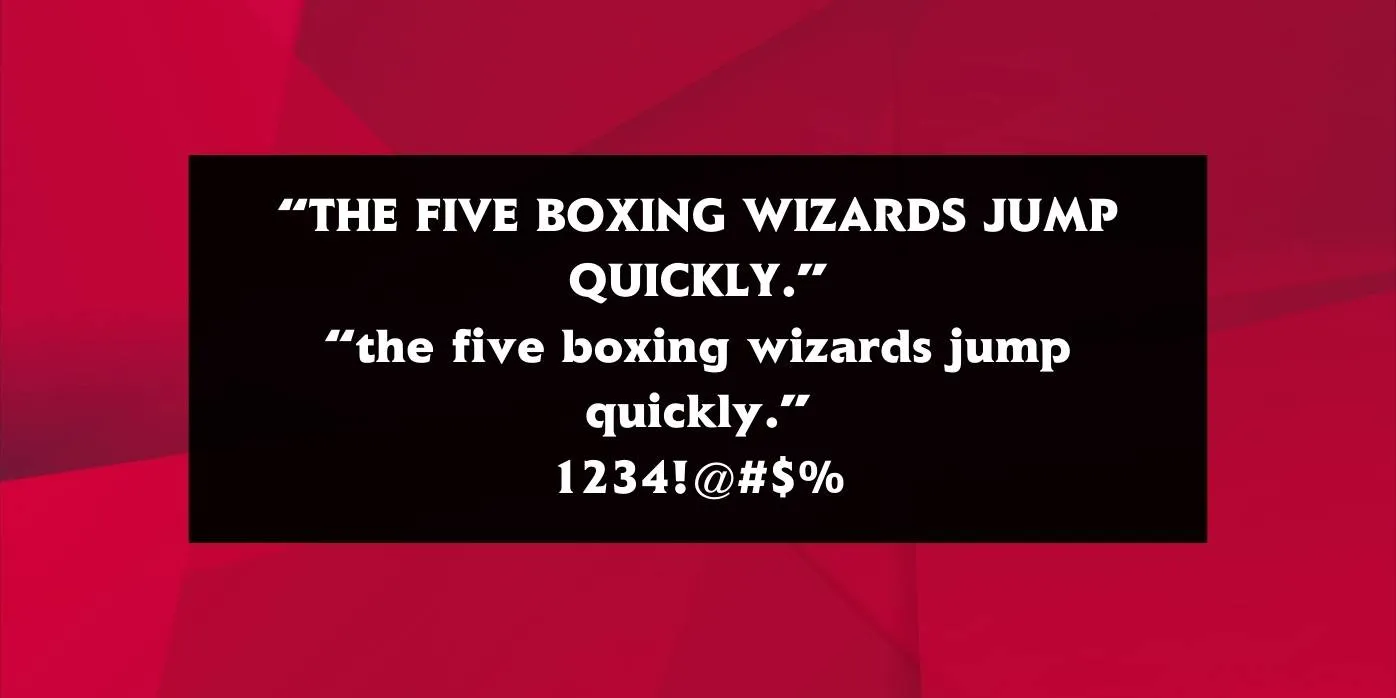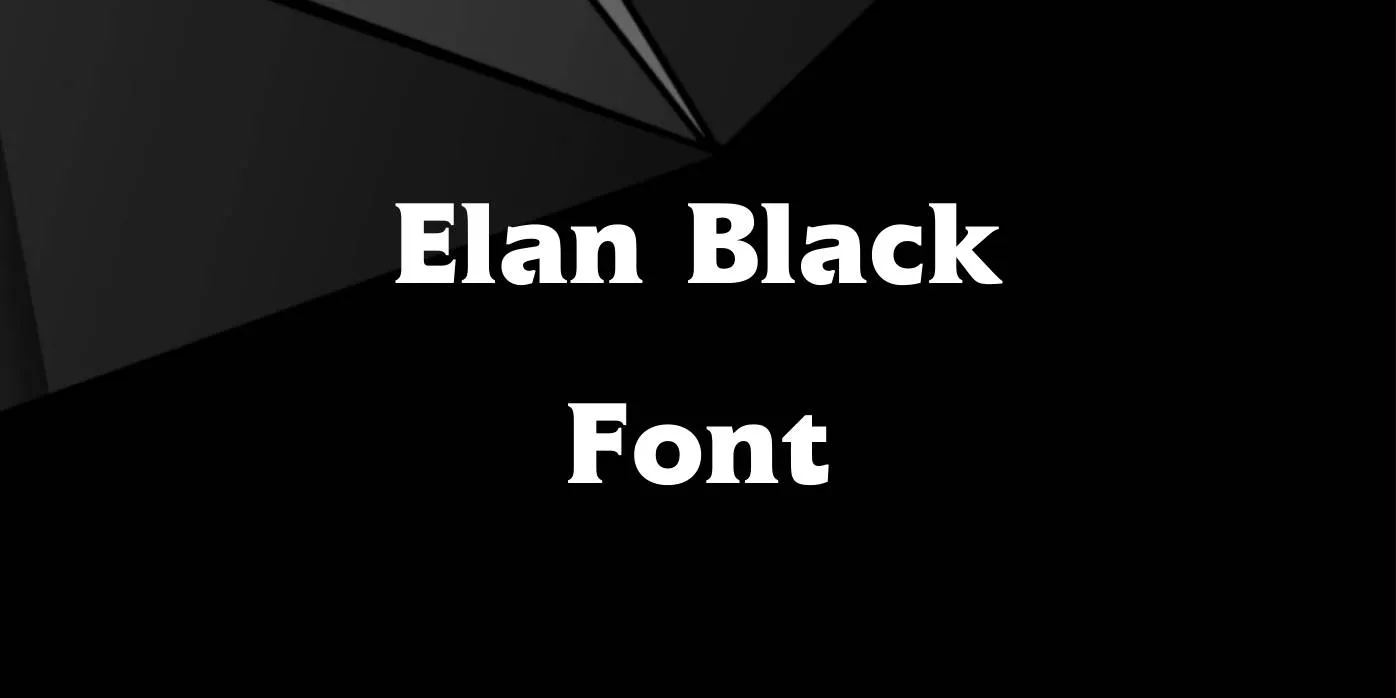
Elan Black Font
Elan Black Font is a serif font that was created by Elan in 2012. This font is perfect for adding a touch of elegance to any project. This Font is available in both regular and bold weights. This font has a very distinct style that is perfect for adding a touch of elegance to any project.
This Font is available in both regular and bold weights. The amercian script Font is a great script typeface and is best for pairing procedures with this typeface. This font is perfect for adding a touch of elegance to any project. The glyphs of this font include a wide variety of swashes and ligatures that make it perfect for creating beautiful headlines and titles.